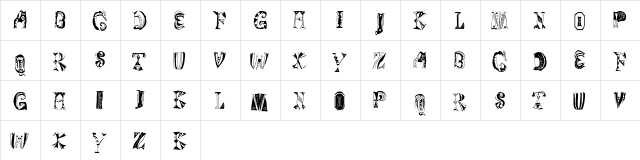
Magyarish Regular
Design Context for Magyarish Typeface
Magyarish is a composed and adaptable typeface that performs quietly and consistently across a wide range of design contexts.